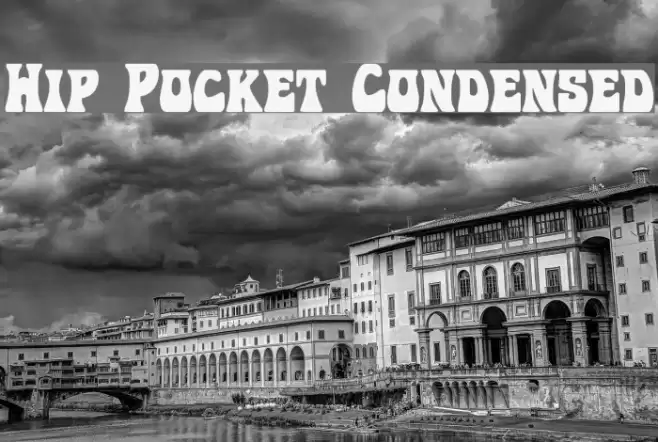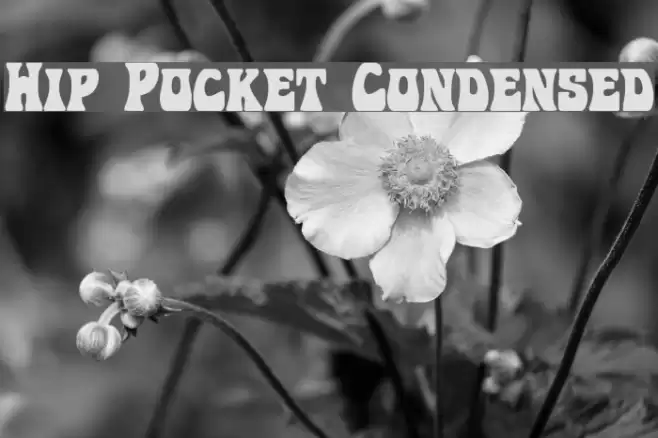
Hip Pocket Condensed Font
Hip Pocket Condensed Description
This font features a bold and condensed style with a playful, retro aesthetic. The characters are thick and heavy, with a unique, almost cartoonish flair that makes them stand out. The uppercase letters have a strong presence, while the lowercase letters maintain the same boldness, creating a cohesive look. The numbers and special characters are equally bold, ensuring consistency across all glyphs. The font's condensed nature allows for tight spacing, making it ideal for impactful headlines and titles. Its decorative style is reminiscent of vintage poster fonts, adding a nostalgic touch to any design.
A bold, condensed font with a playful, retro style from Uncategorized fonts.
- Proposed Projects: Ideal for vintage-themed posters, eye-catching headlines, and playful branding projects.
- Character Spacing: Tight
- Overall Style: Vintage